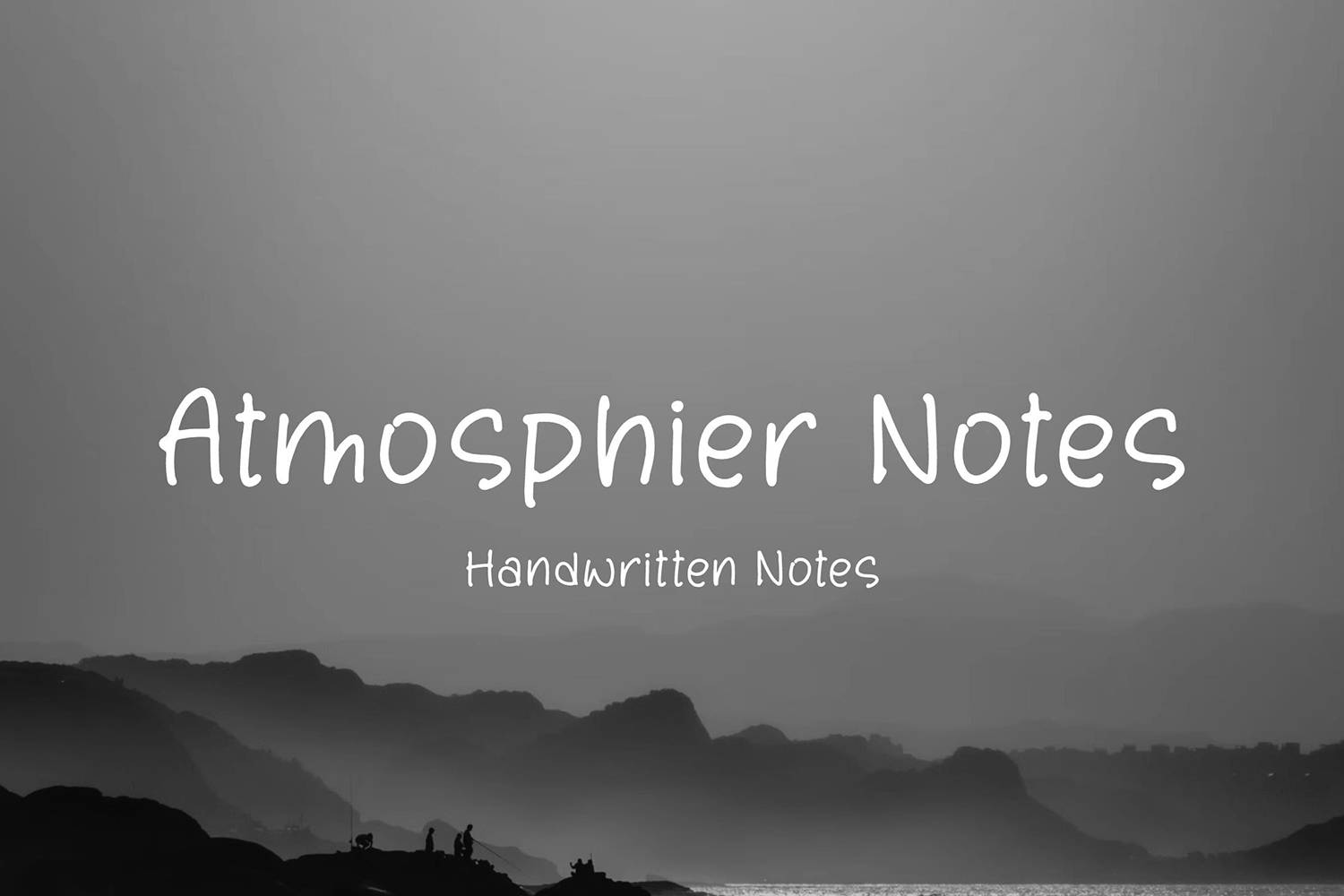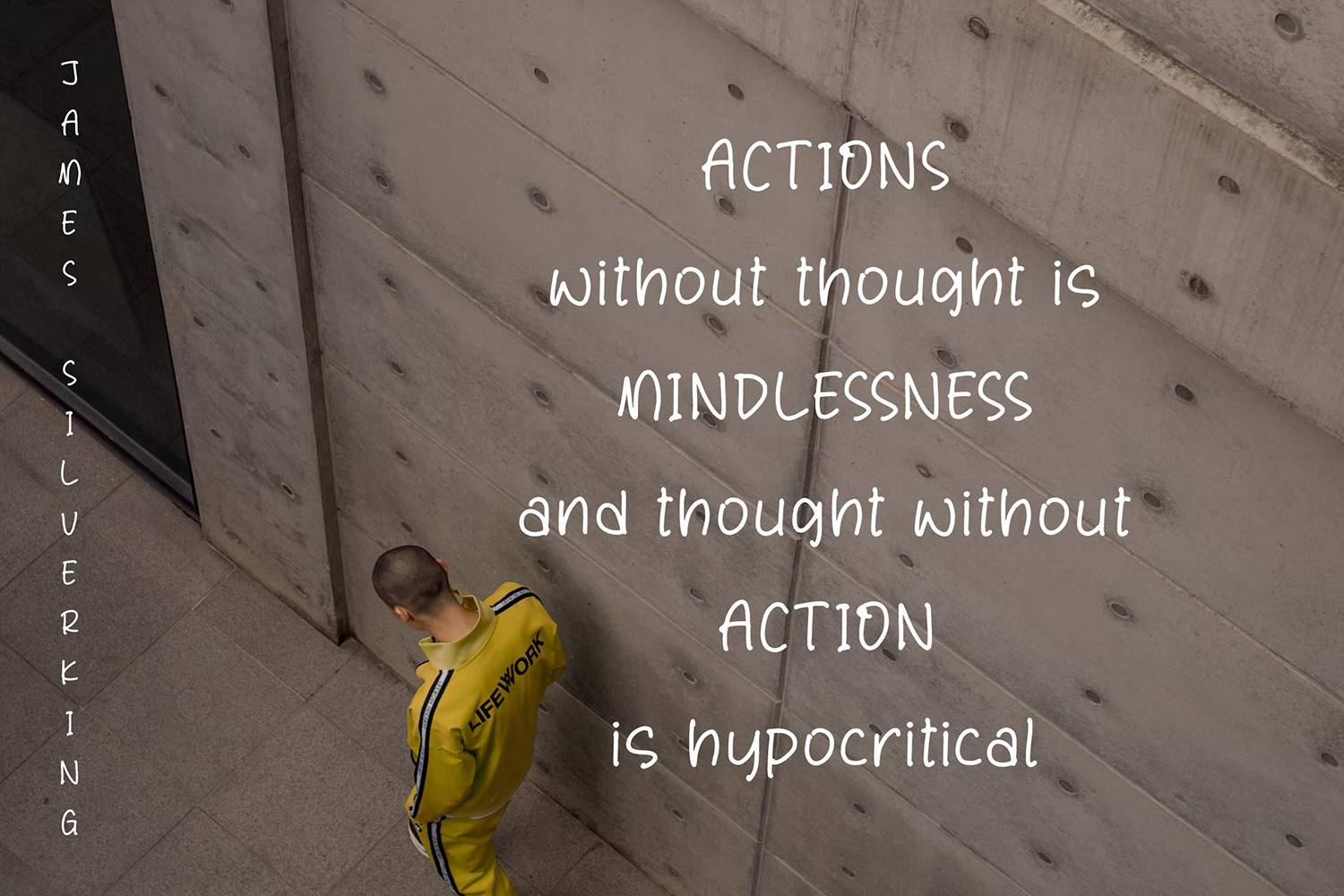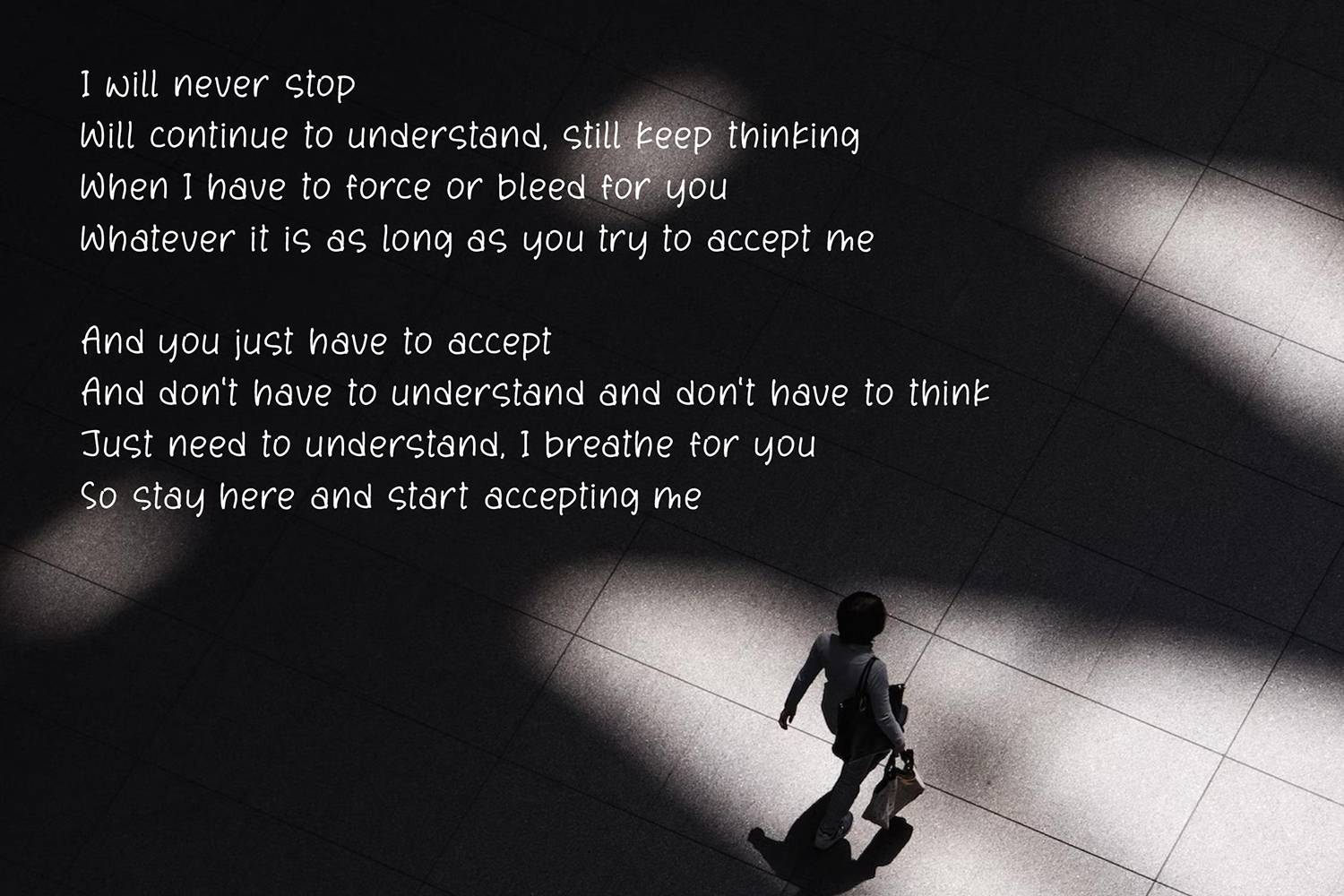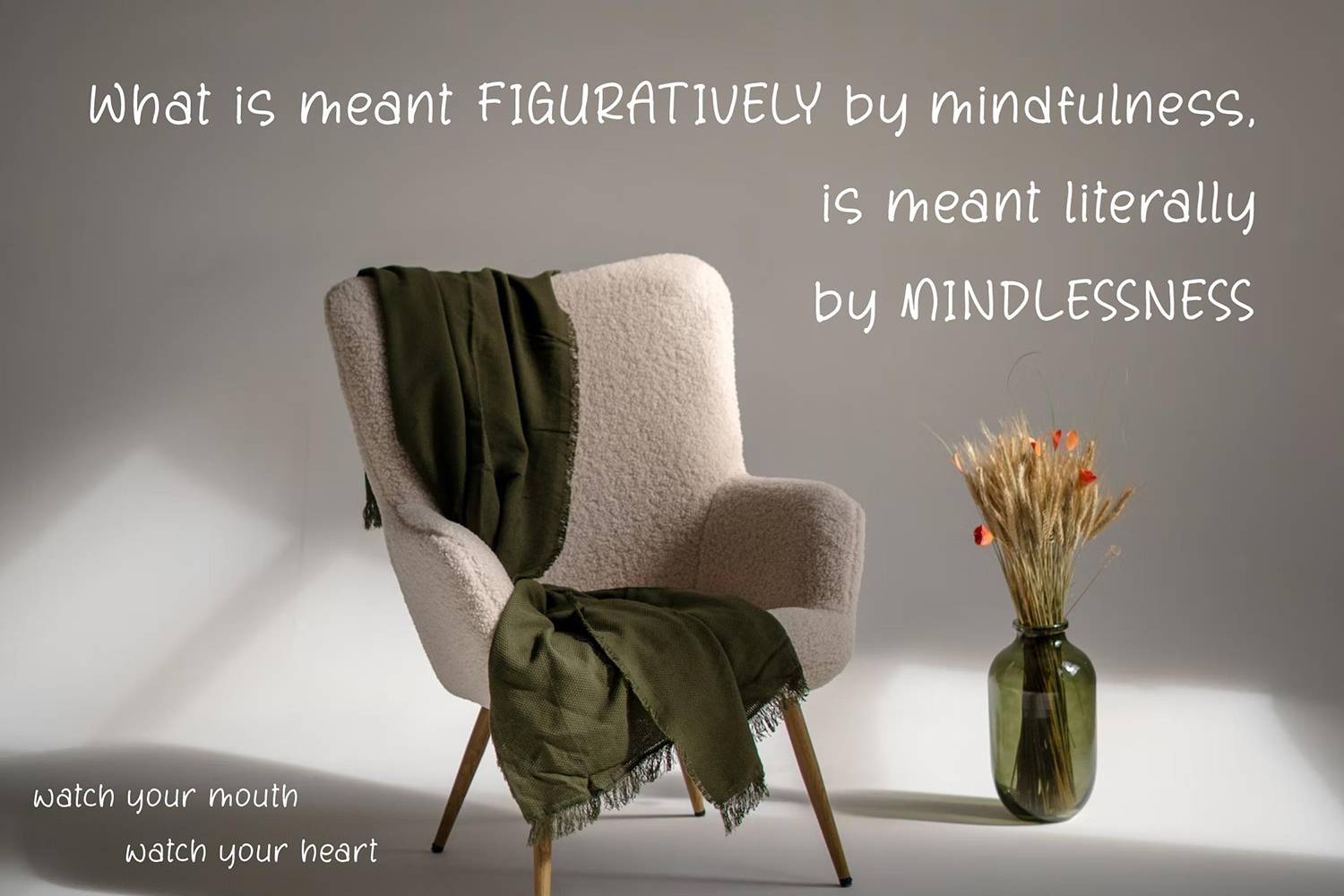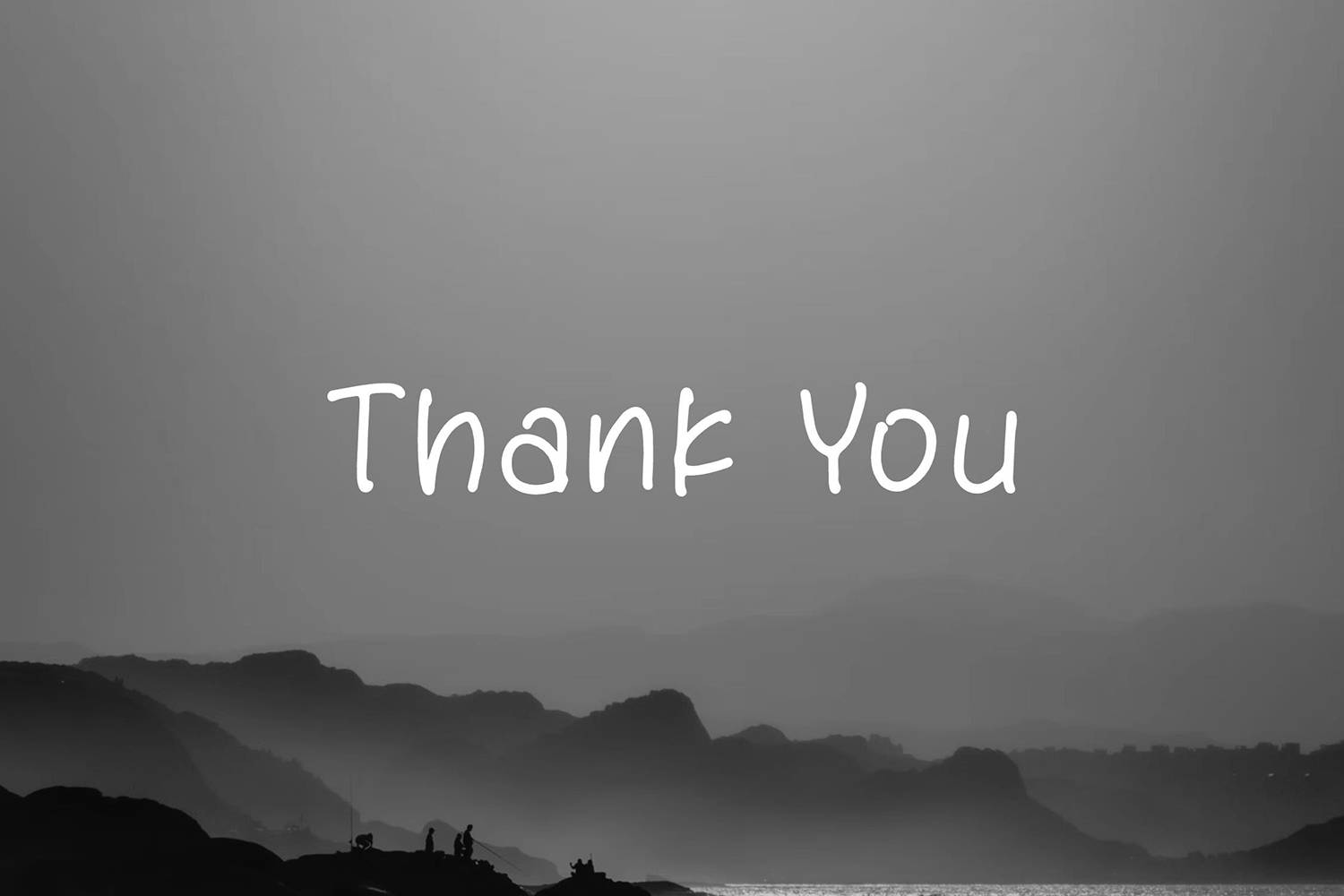
Atmosphier Notes is a casual, handwritten sans serif font with a friendly and approachable style. Its moderate weight, uneven stroke widths, and slightly irregular letterforms give it a natural, personal feel, making it ideal for informal designs, creative projects, or anything that benefits from a warm, human touch. This font works well in personal notes, greeting cards, and playful branding where a relaxed yet legible look is desired.
Atmosphier Notes Font
About Atmosphier Notes Font